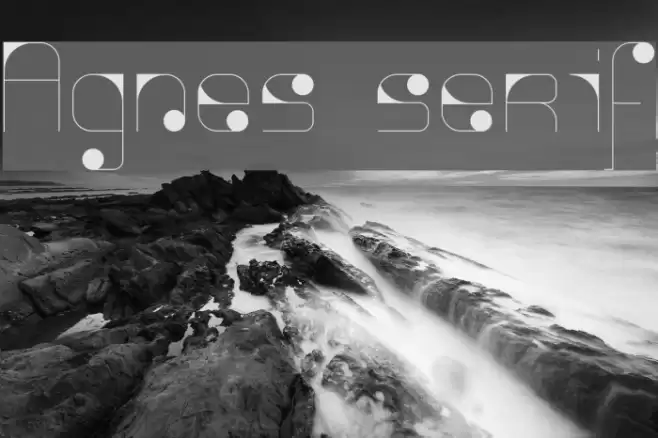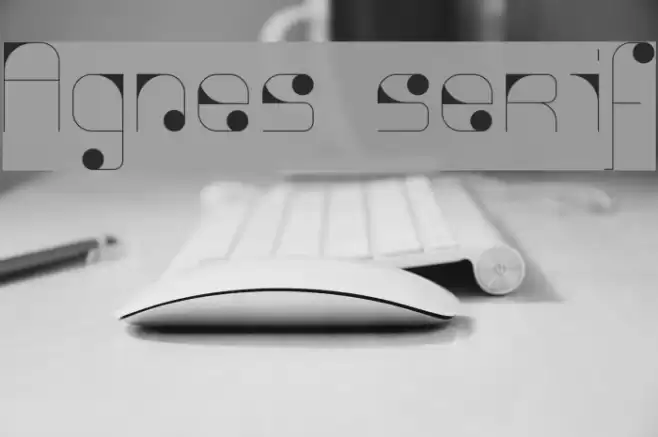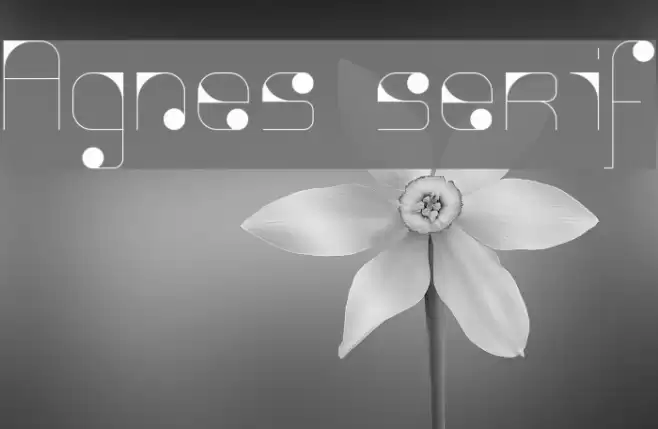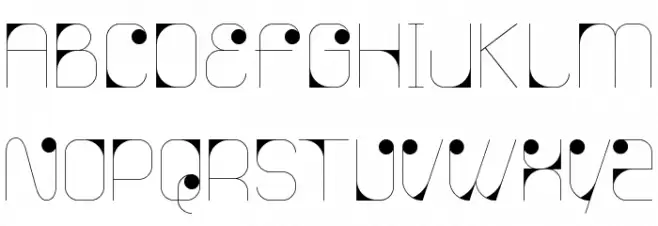
Agnes serif Font
Agnes serif Description
This font features a unique and modern design with a distinct geometric flair. The characters are composed of thin lines with bold, circular accents that create a striking contrast. The uppercase and lowercase letters maintain a consistent style, with the circular elements adding a playful yet sophisticated touch. The numbers and special characters follow the same design principles, ensuring a cohesive look across all text. This font's innovative style makes it stand out, offering a fresh take on traditional serif designs.
A modern, geometric font with thin lines and bold circular accents from Uncategorized fonts.
- Proposed Projects: Ideal for branding, logos, and creative projects that require a modern and artistic touch.
- Use Case: Logos, Headlines, Creative projects